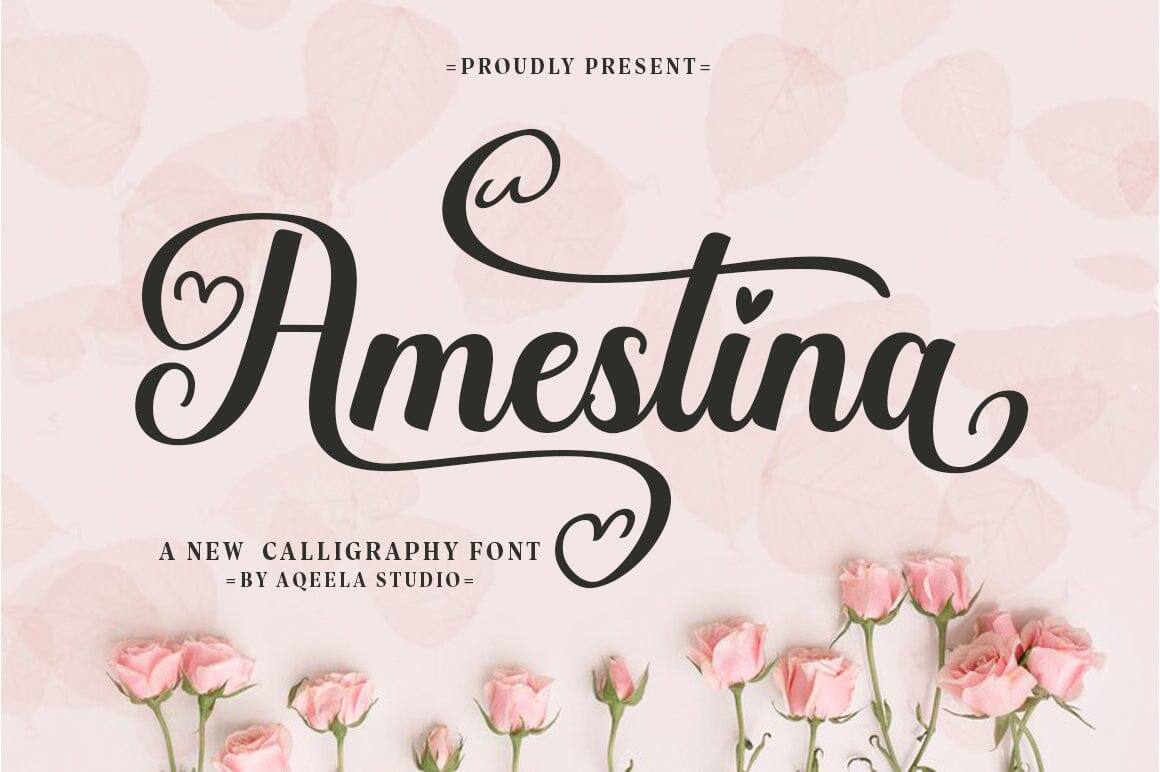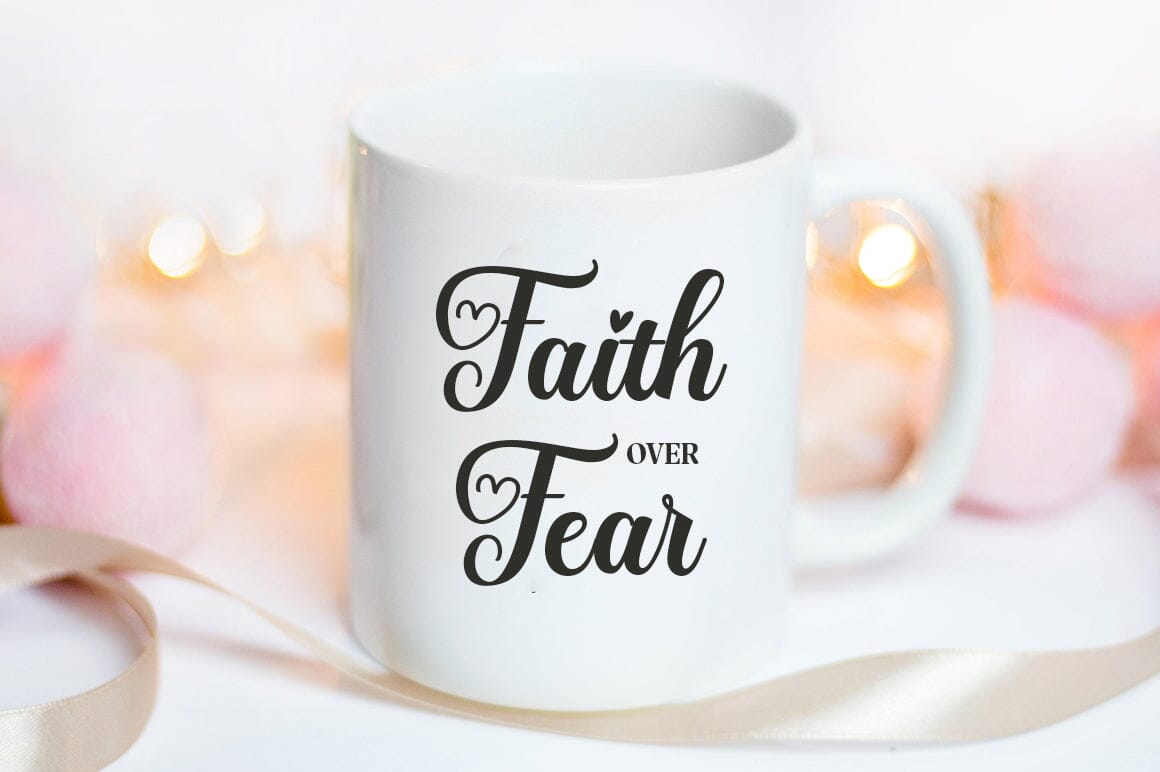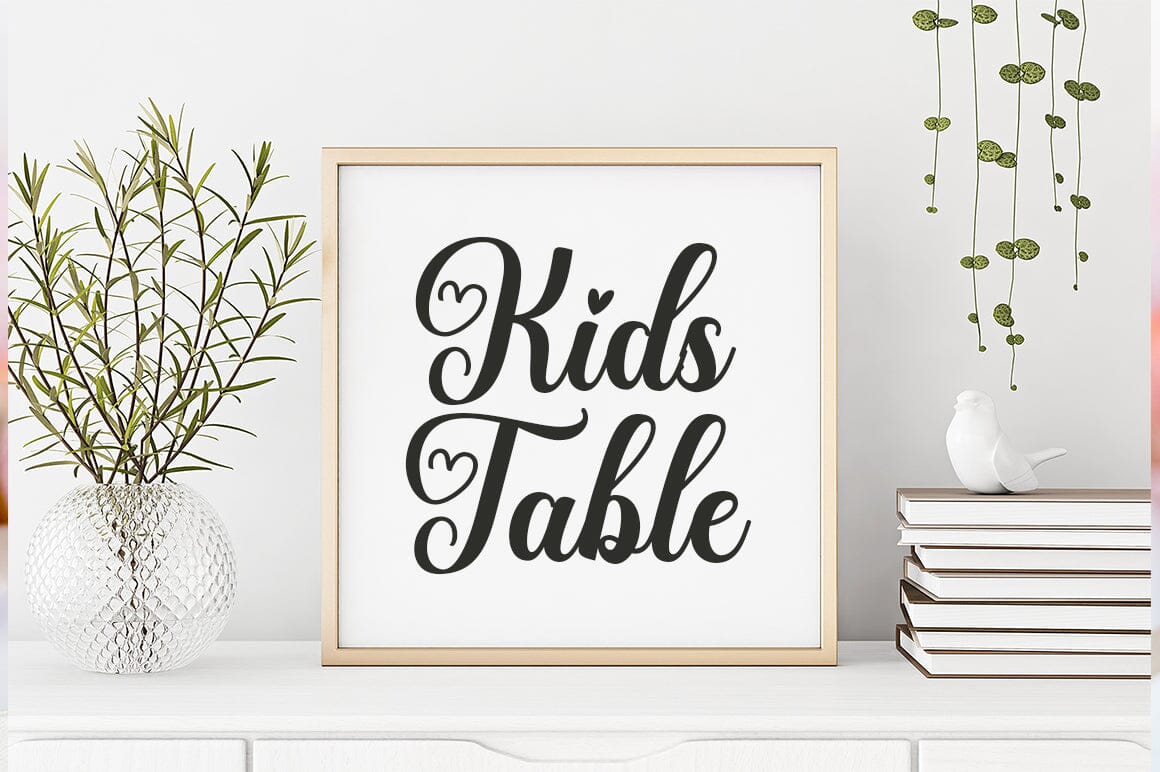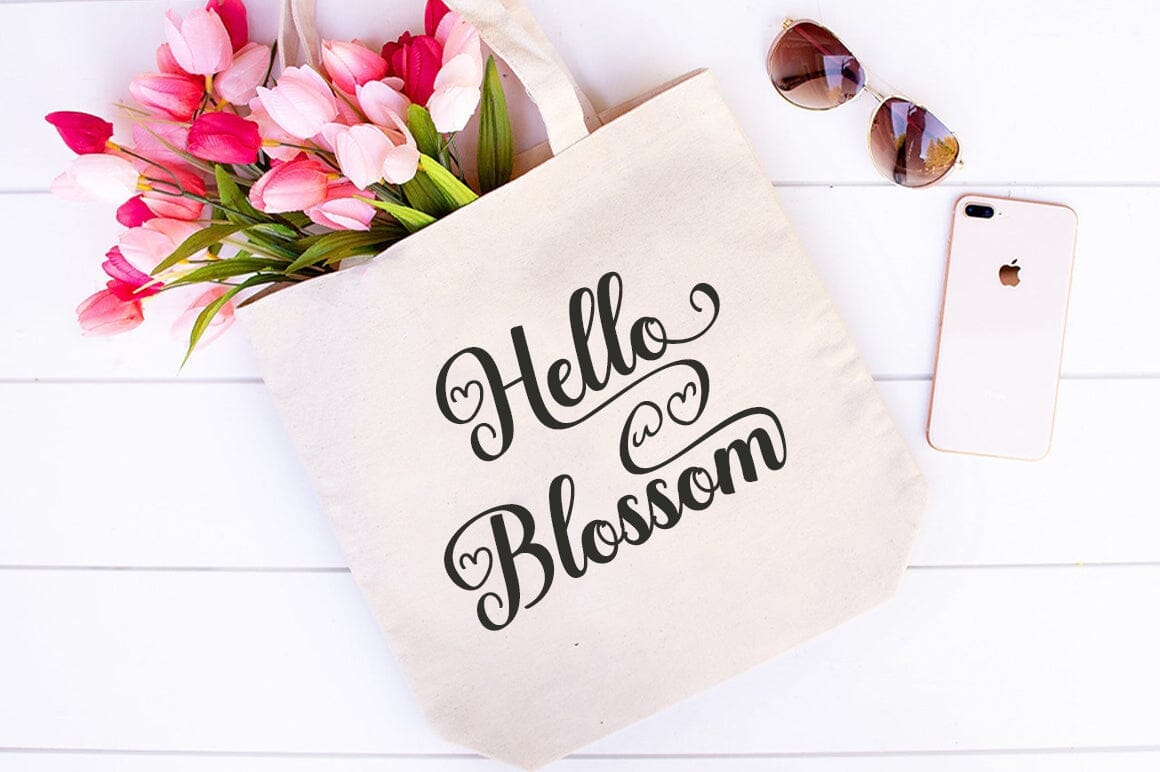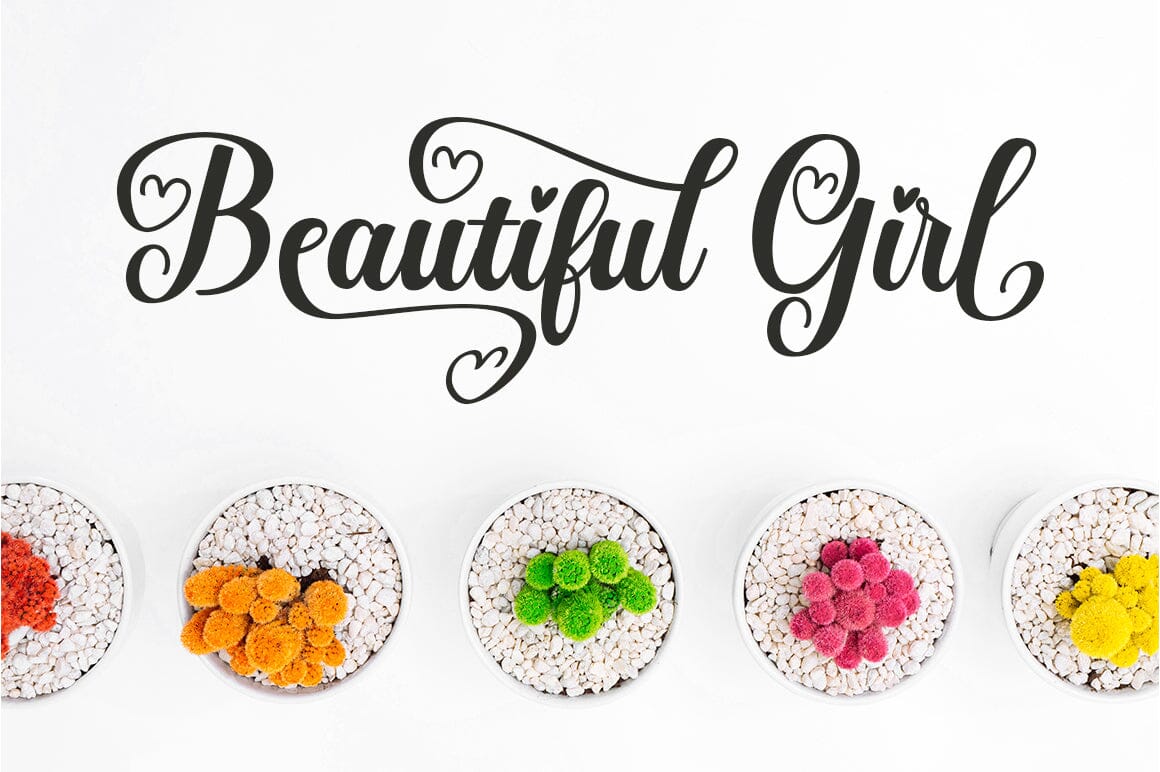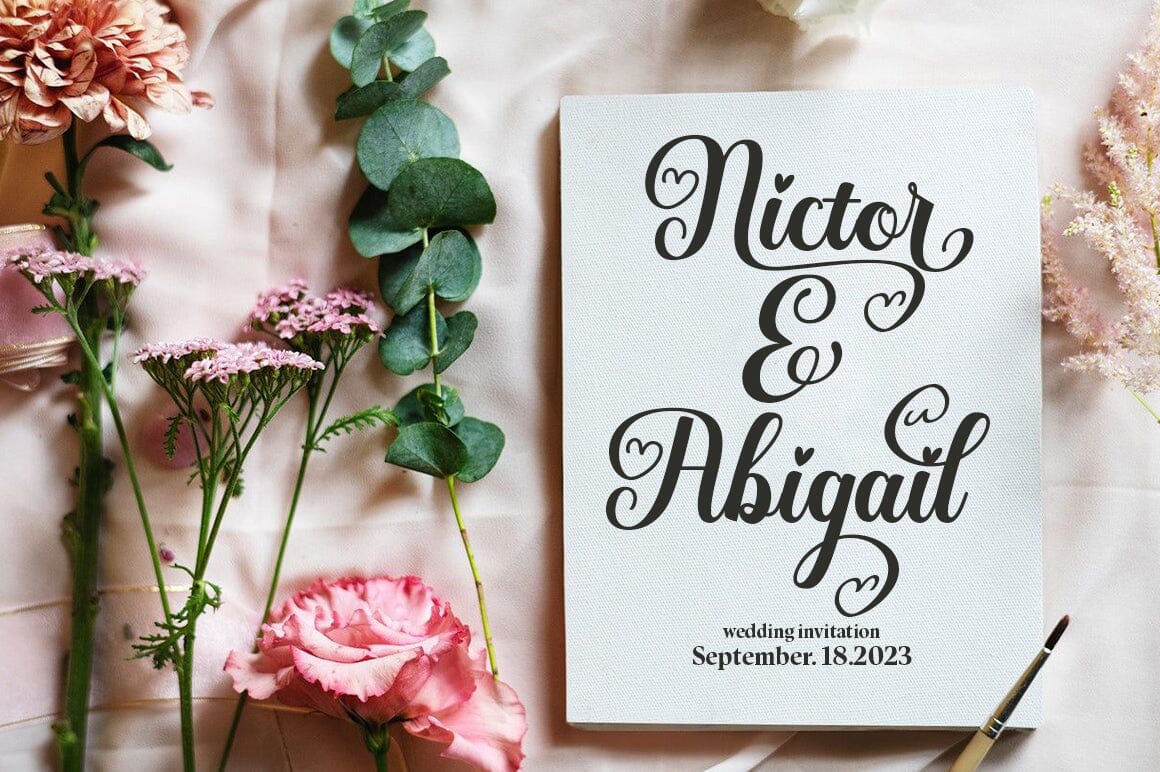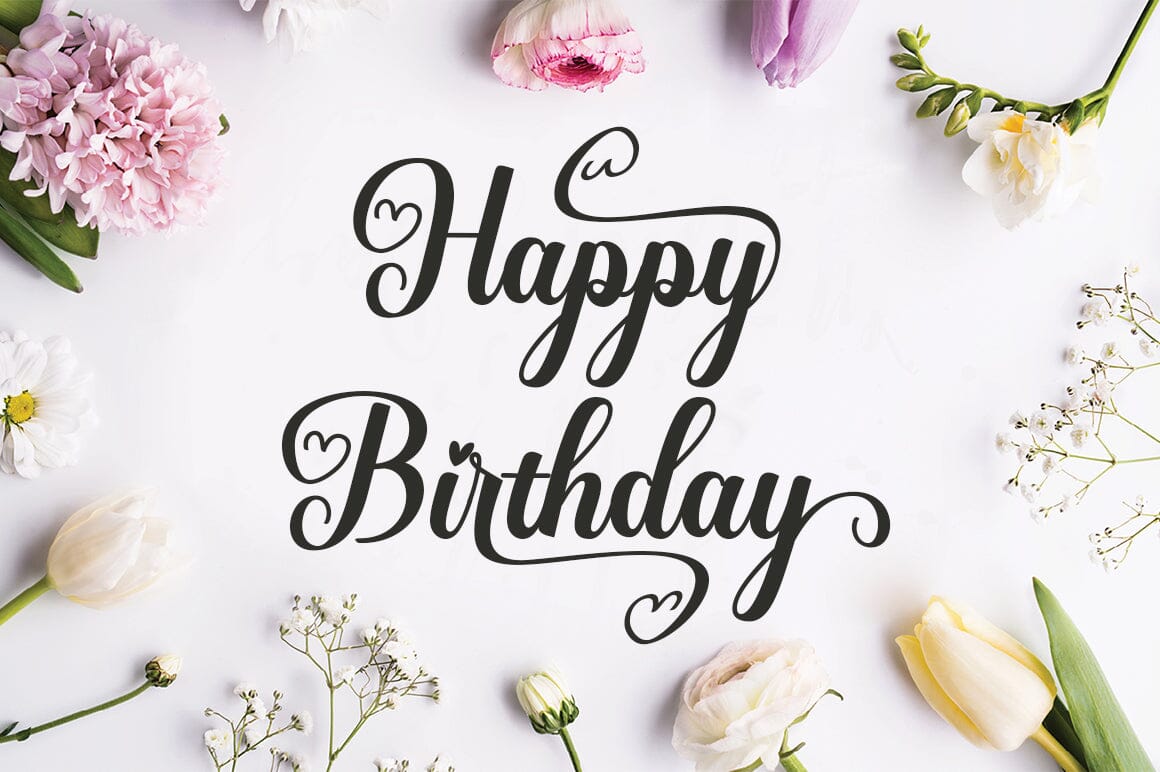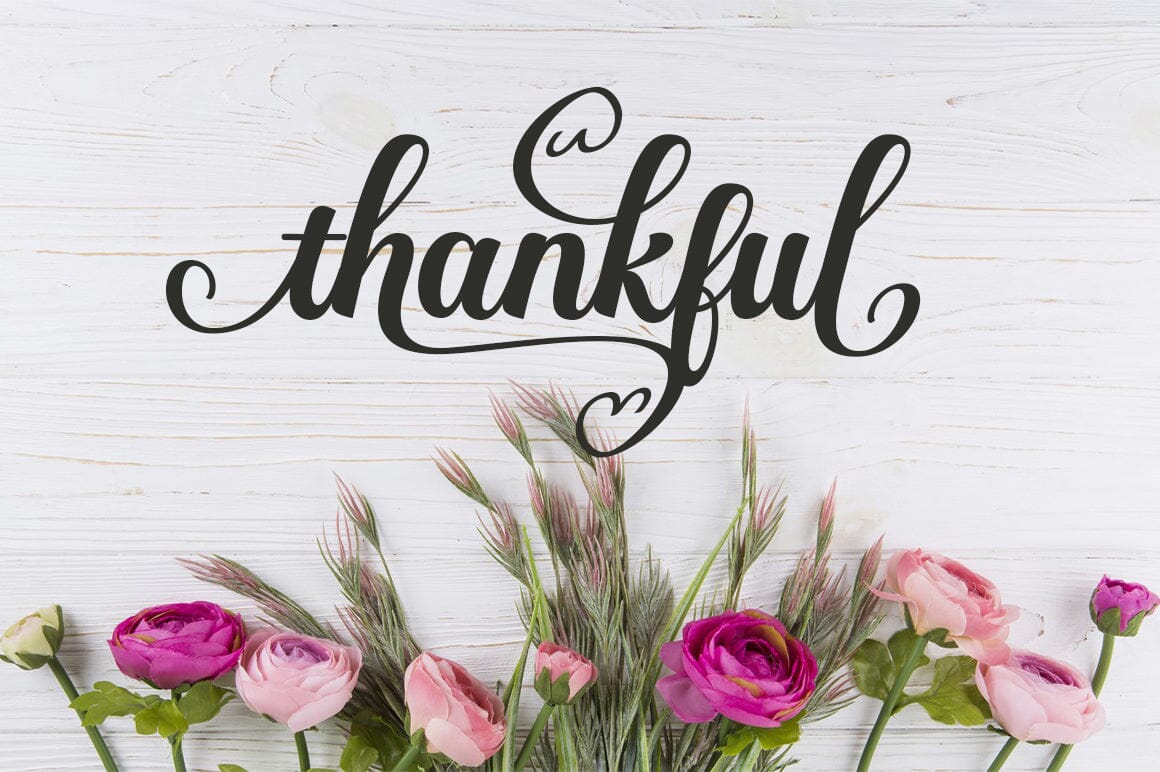
Amestina
About Amestina
Amestina’s most recent letter styles are ideal for projects that call for a handwritten aesthetic, including wall displays, wedding invitations, social media post logos, commercials, product packaging, product designs, labels, photographs, watermarks, invitations, and stationery.